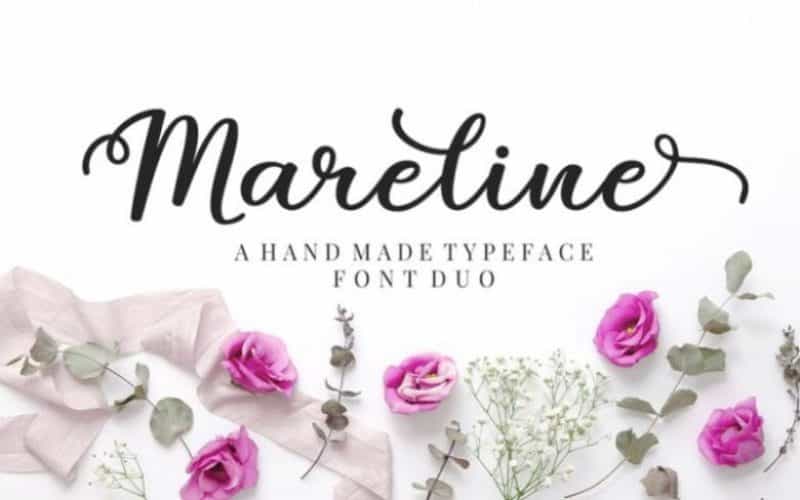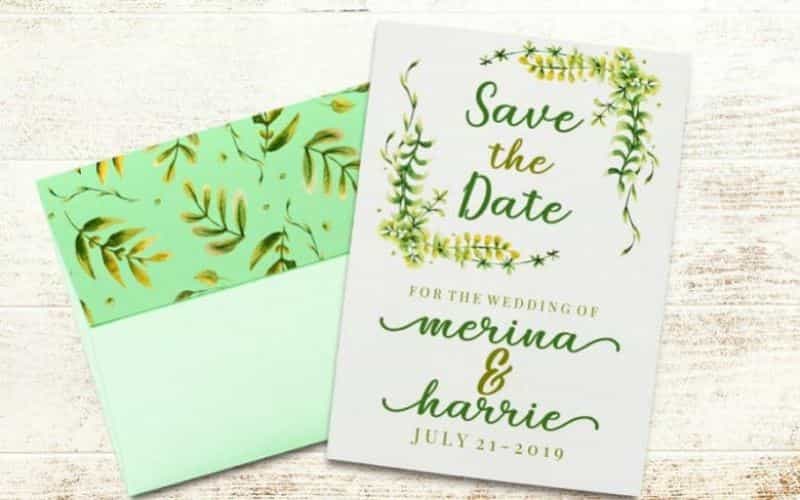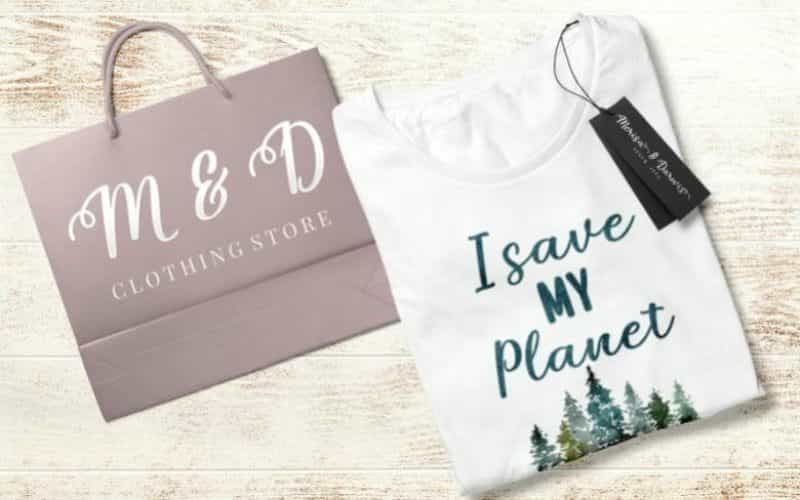
Introducing Mareline Script Font Duo, a sweet handlettered font, casual and dynamic, perfect for your projects. Bold and irregular baseline. designed with love and lots of messages for family and children to keep things fun and warming. Contains a complete set of lowercase, uppercase, alternates, ligatures, punctuation, numbers, and multilingual support.